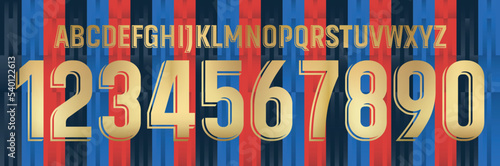
font vector team 2022 kit sport style font. football style font with lines and points inside. messi. Barcelona font. sports style letters and numbers for soccer team